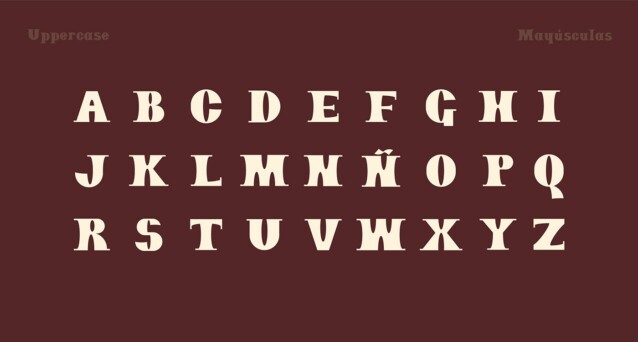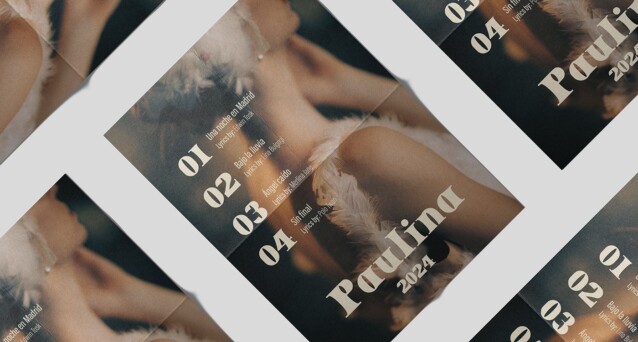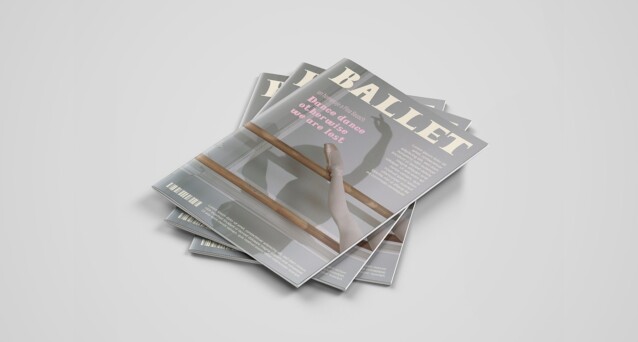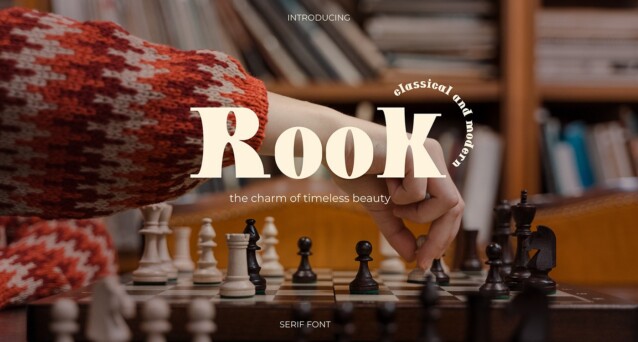
Rook Font
Rook Font is a bold and authentic display font. Each letter exudes boldness, making it perfect for commanding attention in headlines and titles. The font is suitable for any branding project like logo, template design, esport, and many more. outstanding in a wide range of contexts.